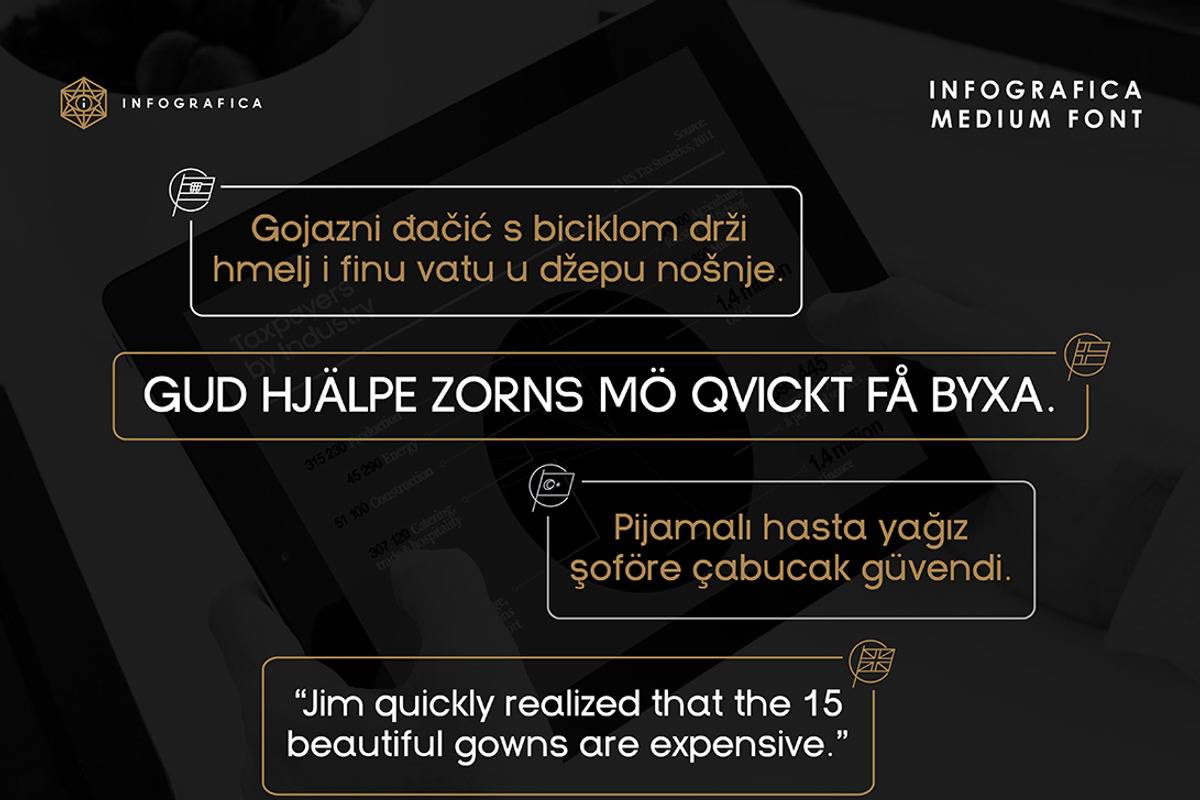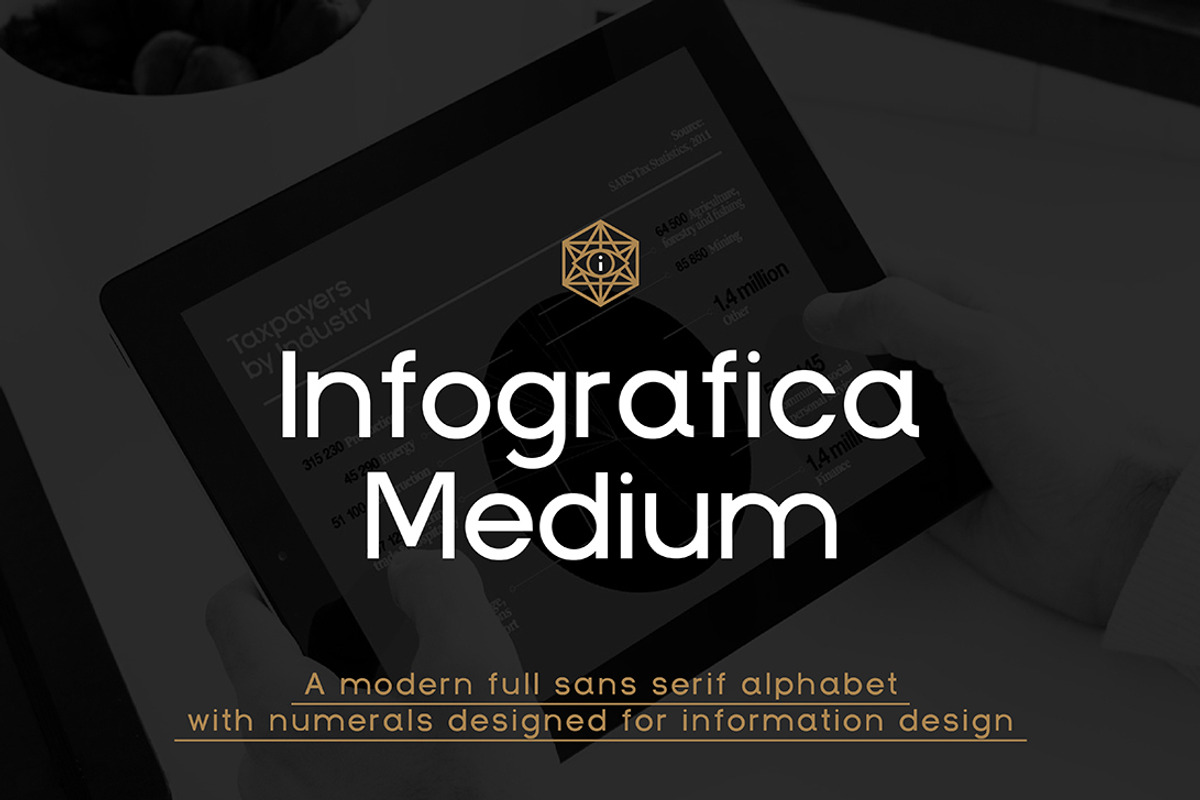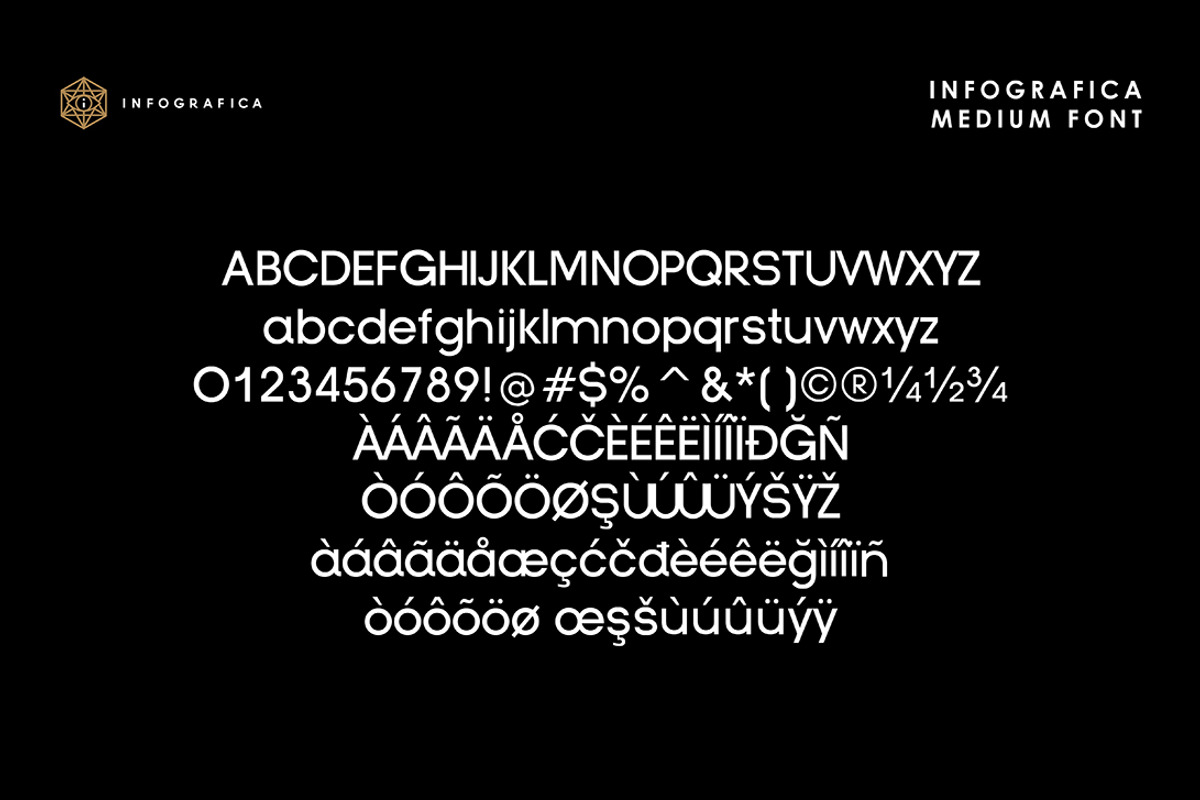
Infografica Medium Font
Introducing… Infografica Medium - a contemporary sans serif typeface which is perfect for refined and contemporary infographic design.
The Infografica Medium Font (Infografica Medium.ttf and Infografica Medium.otf) - featuring numbers, numerals, symbols and foreign language characters for languages like Croatian, Swedish and Turkish. Give the font a test drive below and let us know what you think!